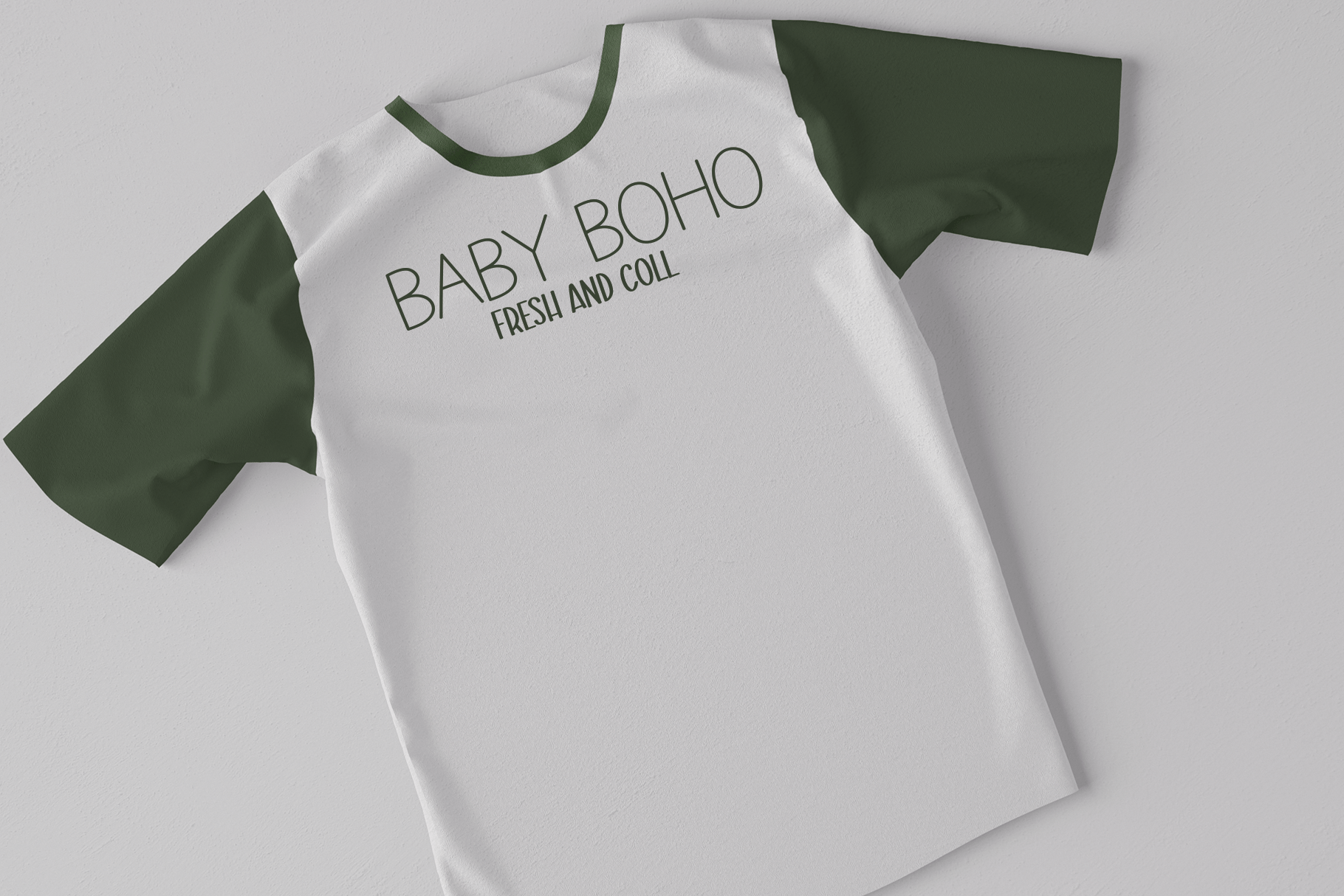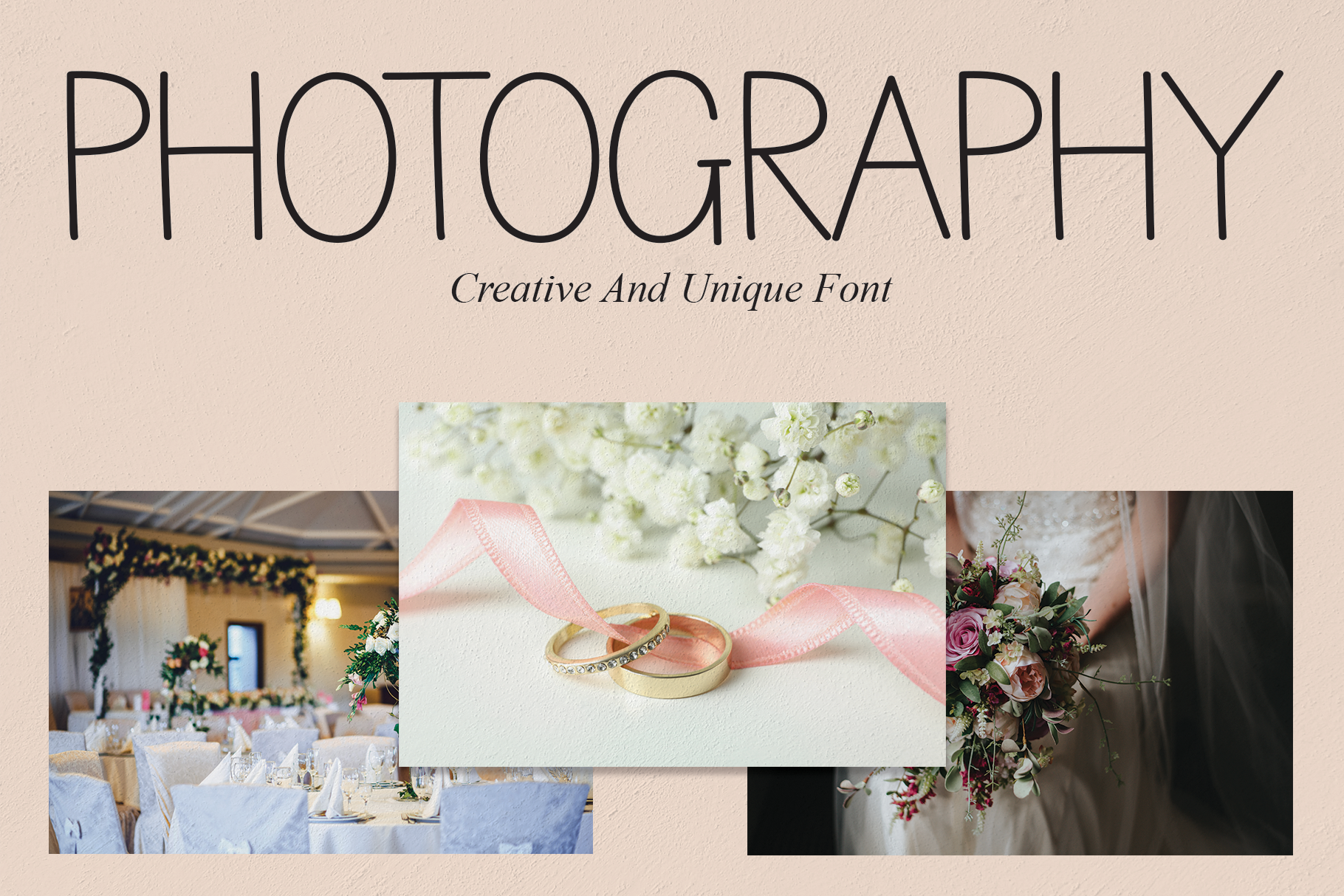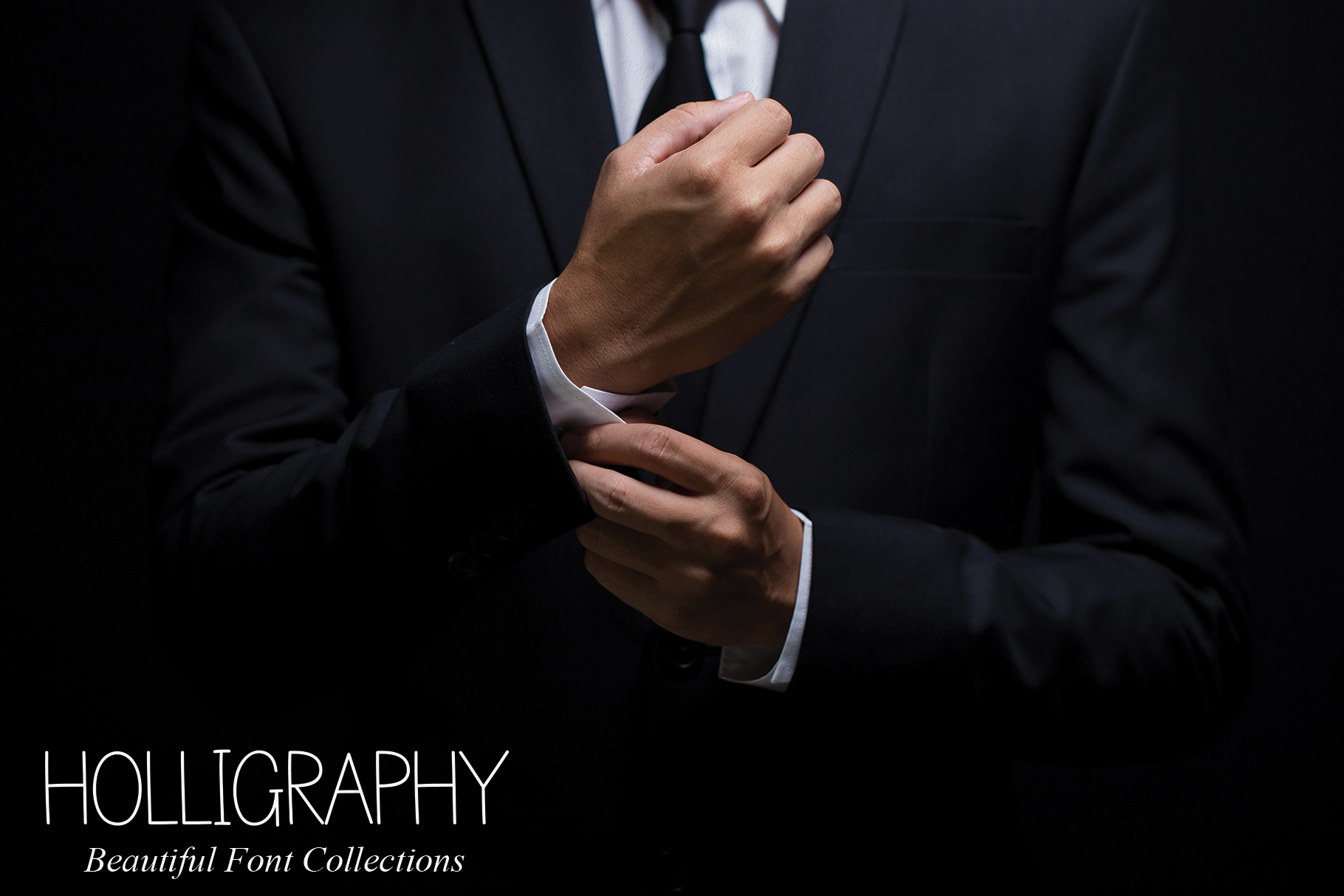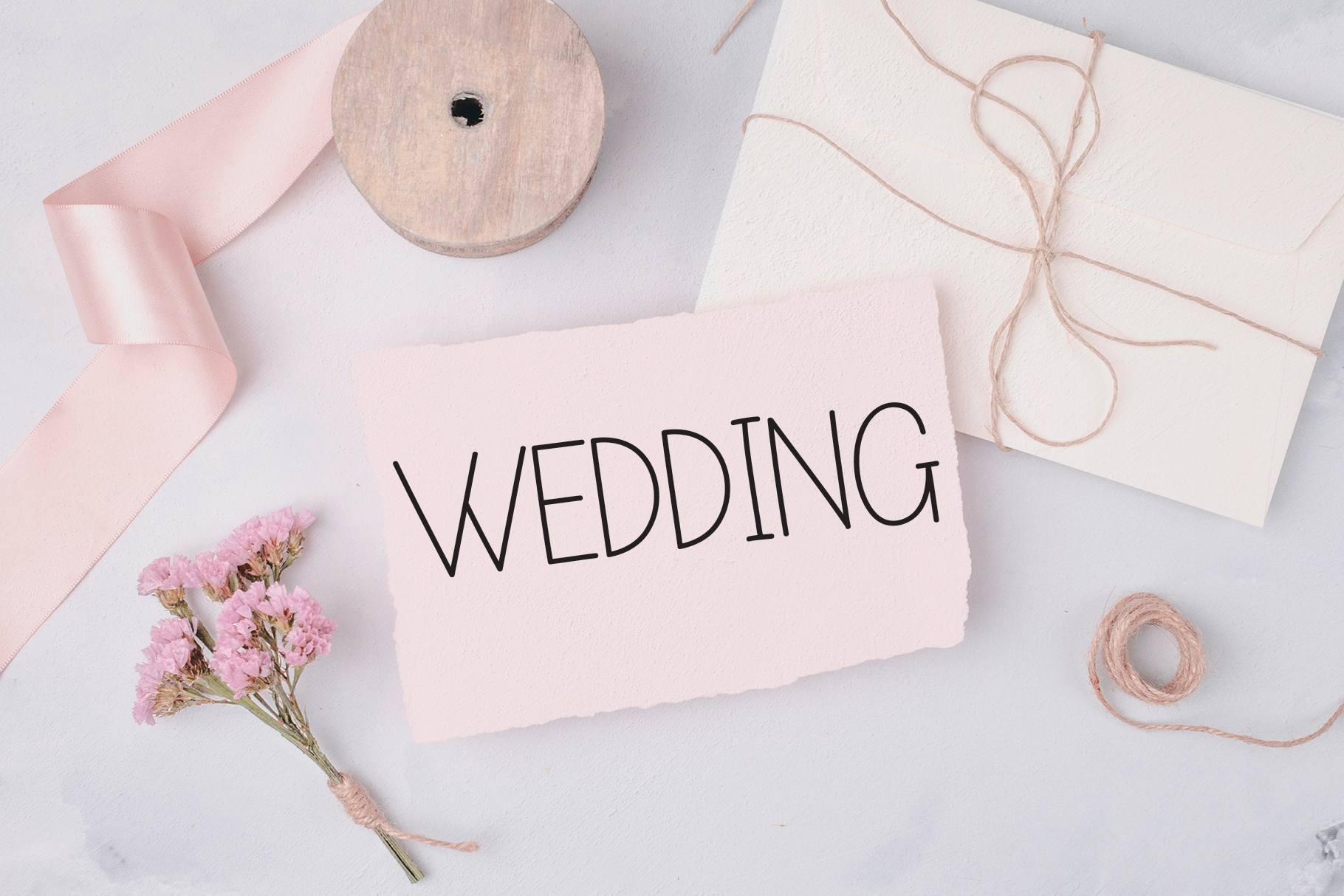
Simple Line Display Font
This is a clean and simple handwritten font. It is ideal for wall displays, wedding invitations, social media post logos, advertisements, product packaging, product designs, labels, photography, watermarks, invitations, stationery, and any project that requires a gorgeous vibe.